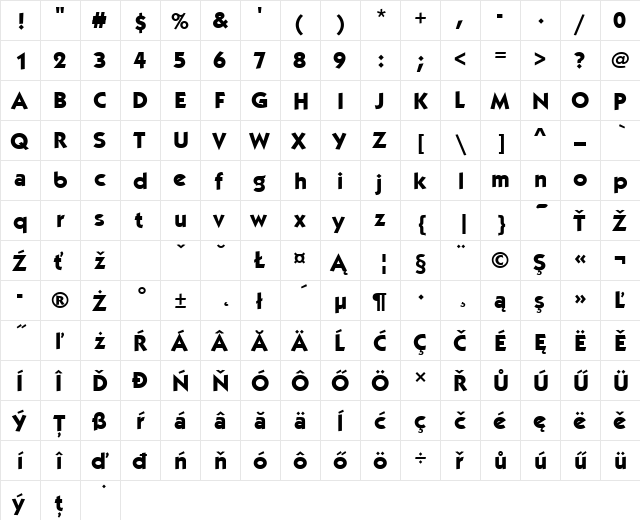
KabelItcTEE Bold
Design Context for KabelItcTEE Typeface
KabelItcTEE takes a measured approach to typography — its balanced proportions and neutral character make it a reliable workhorse for both digital and print work. The heavy weight commands attention and anchors typographic hierarchies.